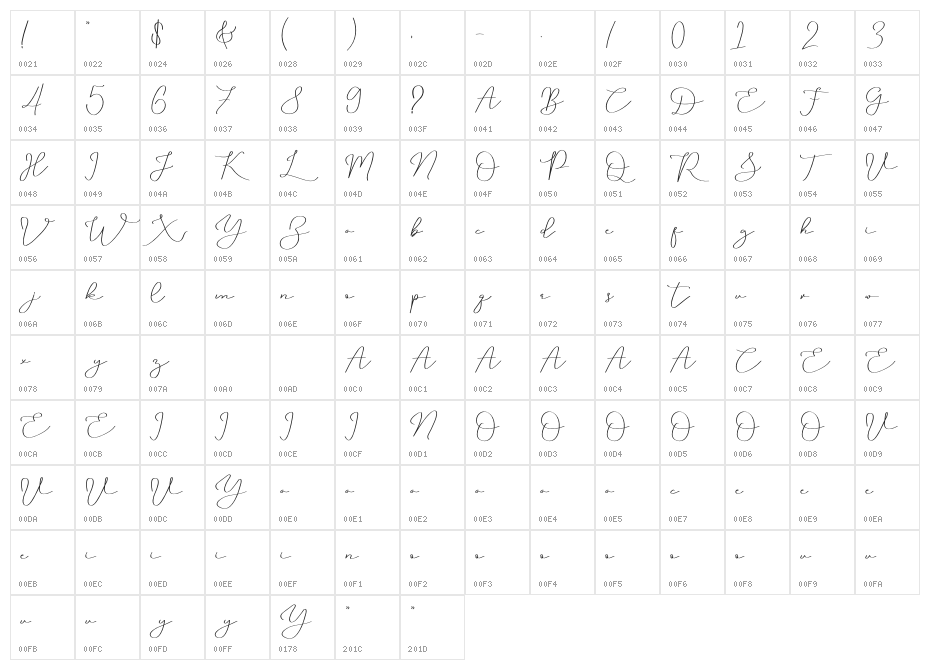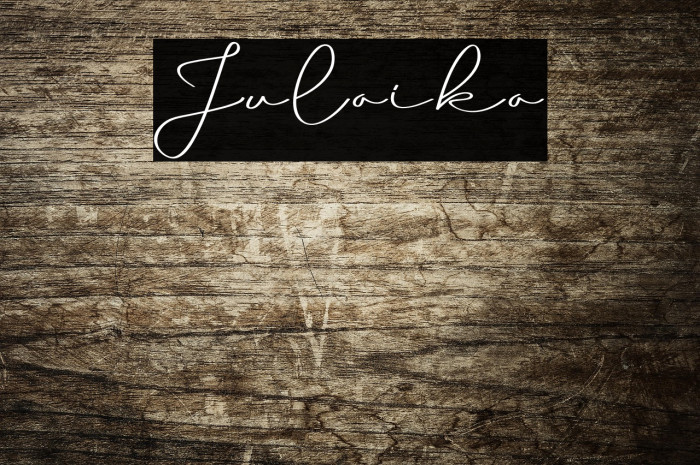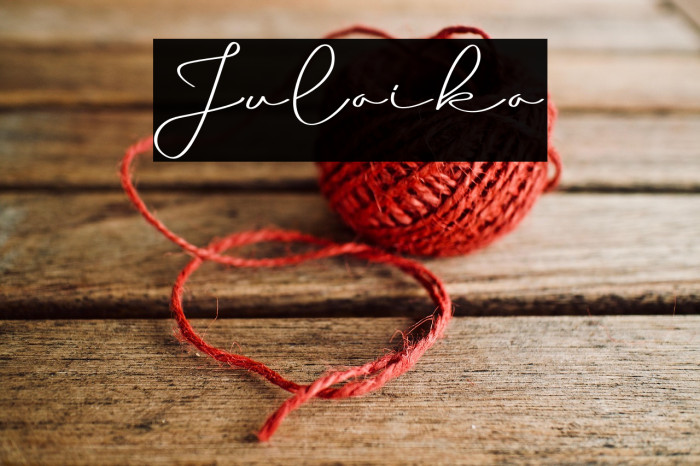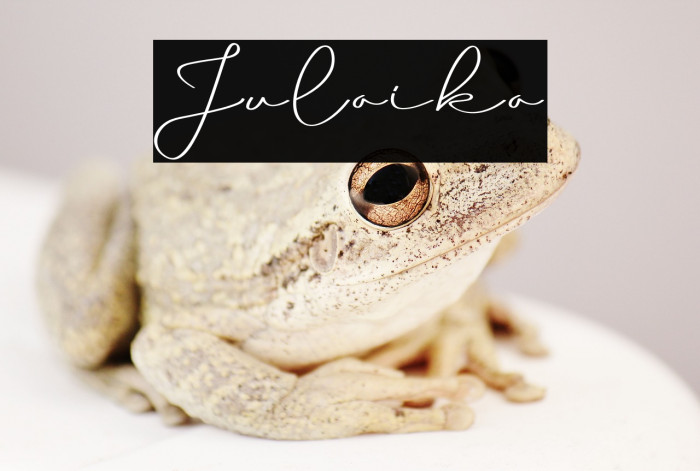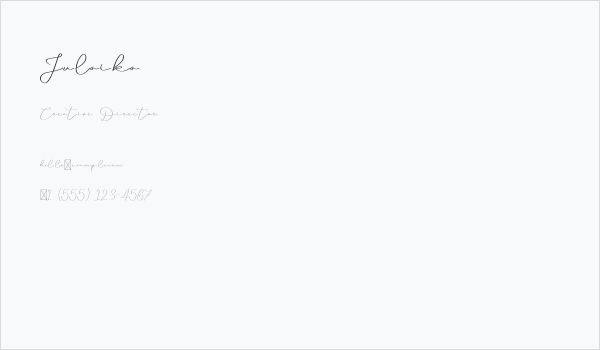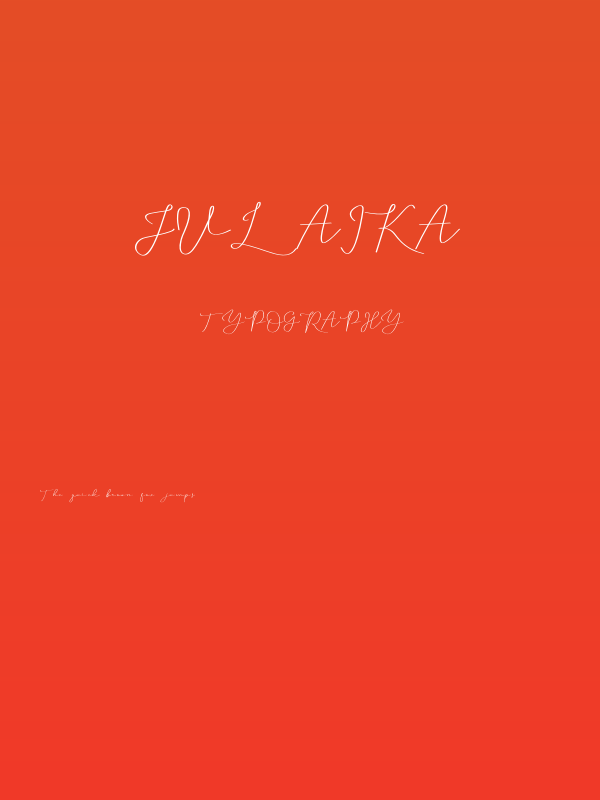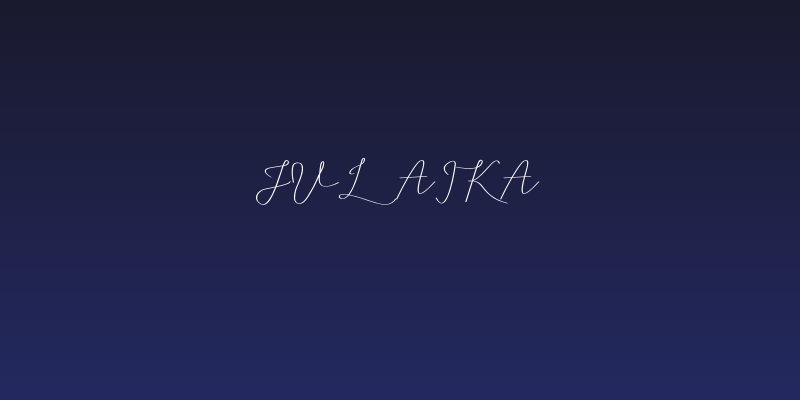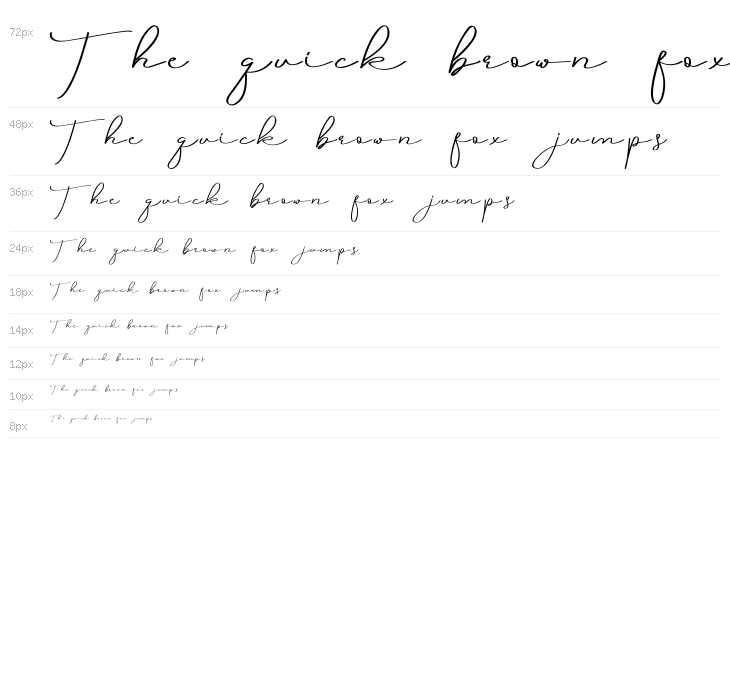
Julaika Font
Julaika Description
This elegant script font features flowing, interconnected letters that exude a sense of sophistication and grace. The uppercase letters are delicately crafted with smooth curves and subtle flourishes, while the lowercase letters maintain a consistent, fluid motion that enhances readability. The numerals are stylishly designed, complementing the overall aesthetic with their graceful arcs and loops. The font's thin strokes and gentle contrast give it a refined appearance, making it suitable for formal invitations, branding, and other creative projects where elegance is key.
| Use Case | Headlines, Invitations, Branding |
| Proposed Projects | Ideal for wedding invitations, elegant branding, personal stationery, and high-end product packaging. |